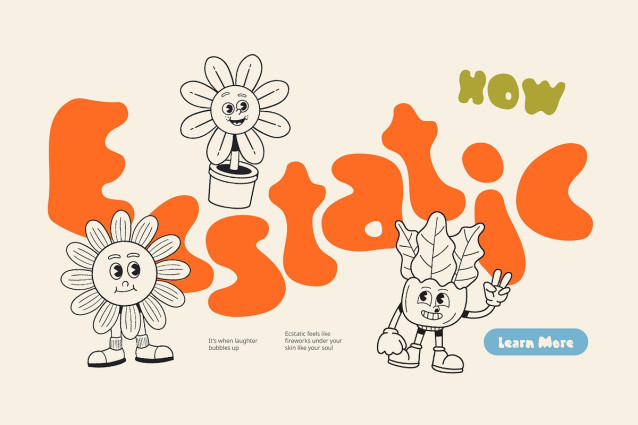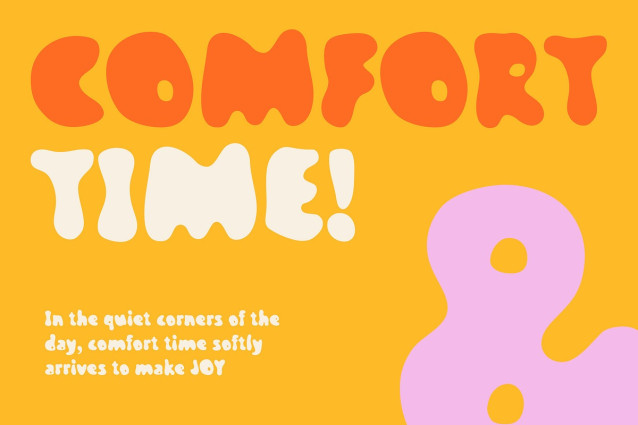
CS Glorius Font
CS Glorius Font is an etchy display font that showcases bold, hand-drawn strokes with a charmingly irregular yet balanced design. Its spontaneous, slightly sketchy letterforms convey a fun and cheerful energy, making it instantly approachable and visually engaging.
Designed for Playful and Kid-Friendly Projects With its joyful and expressive look, CS Glorius is the perfect typeface for kid-focused designs. From colorful storybooks and whimsical toy packaging to bright educational posters and children’s branding, it brings a lighthearted and welcoming tone to every composition.
Bold, Fun, and Full of Character The bold lines and informal construction give CS Glorius a unique and personable character. While it radiates creativity and spontaneity, its tidy structure ensures readability and visual harmony—making it ideal for eye-catching headlines or playful branding.
Ideal for Creative and Educational Uses CS Gloruis is built to capture young imaginations and bring excitement to every visual experience. Whether you’re designing learning tools, fun illustrations, or character-driven visuals, this font offers a joyful, sketch-like quality that stands out with friendly charm.